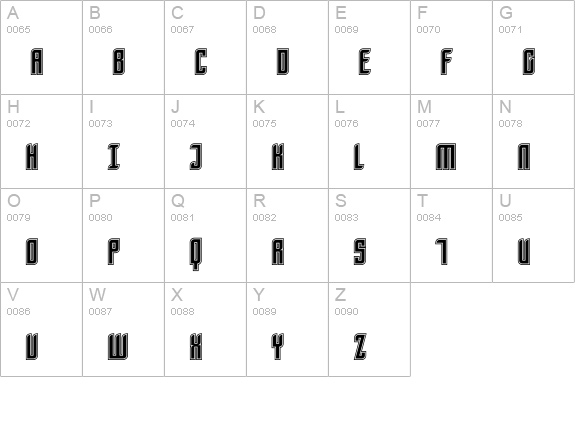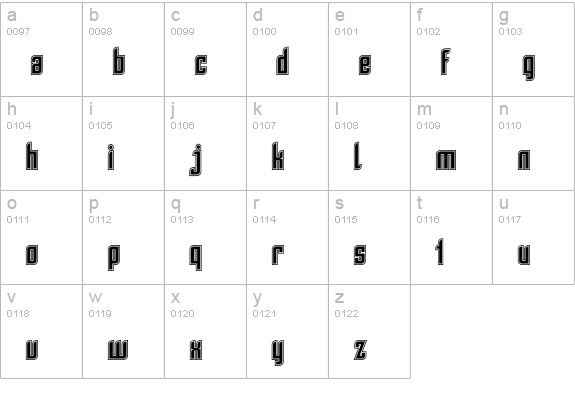
SF Piezolectric Inline Font Details
Introducing SF Piezolectric Inline, a striking and versatile font that combines the elegance of traditional typography with a modern twist. This unique typeface features mesmerizing lines and captivating shapes that effortlessly draw the eye. SF Piezolectric Inline is designed with precision and care, ensuring that every letter is perfectly balanced and harmonious. With its clean and crisp aesthetic, SF Piezolectric Inline is perfect for a wide range of creative projects. Whether you're designing a logo, crafting a headline, or creating eye-catching signage, this font will add a touch of sophistication and professionalism to your work. One of the standout features of SF Piezolectric Inline is its versatility. This font can effortlessly transition from bold and attention-grabbing to subtle and understated, making it a valuable addition to any designer's toolkit. With its wide range of weights and styles, you can easily customize SF Piezolectric Inline to suit your specific needs. And the best part? SF Piezolectric Inline is freely available to download at FontsMarket.com. This means that you can start using this stunning font in your projects right away, without any additional cost. Whether you're a professional designer or a hobbyist, SF Piezolectric Inline offers you the opportunity to elevate your work without breaking the bank. So why wait? Download SF Piezolectric Inline today and experience the beauty and versatility of this exceptional font. Let your creativity soar as you explore the endless possibilities that SF Piezolectric Inline has to offer. Take your designs to new heights with this captivating and freely available font.